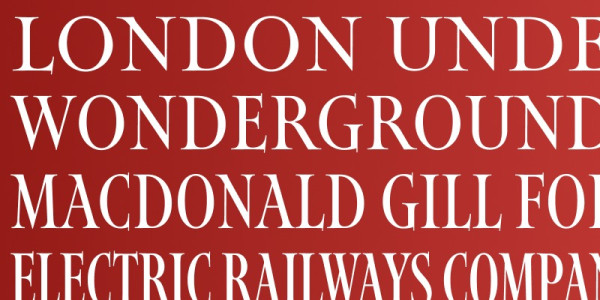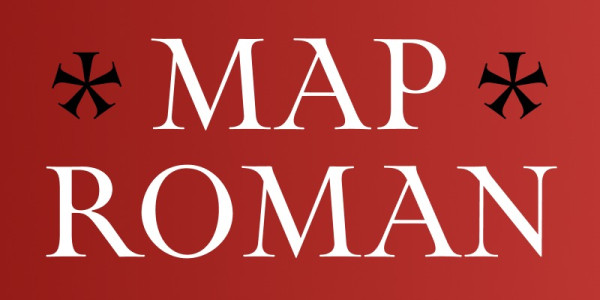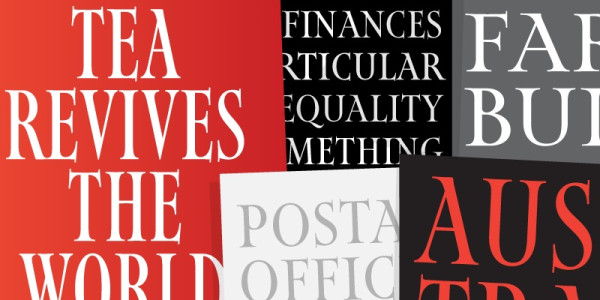
Map Roman Font
Map Roman Font is an elegant set of titling capitals based on the lettering of MacDonald “Max” Gill, whose work included a variety of beautifully handlettered maps of London, the United Kingdom, and the world. After stumbling upon his work in a cartography museum, DJR tried his hand at a typographical interpretation of his style that attempts to capture the liveliness and authority of his letterforms. Map Roman distinguishes itself in its flexibility: at its widest, it is broad and luxuriant, while its narrower widths retain their charm even as they cram into the tightest of spaces.